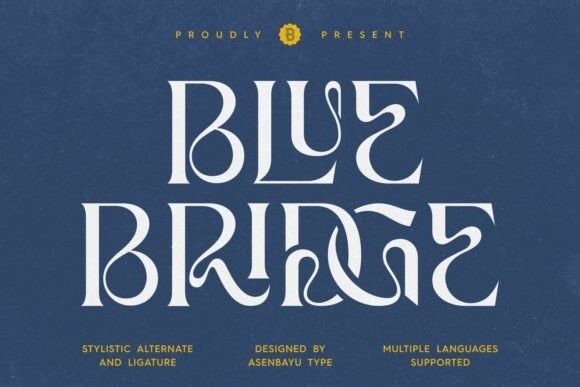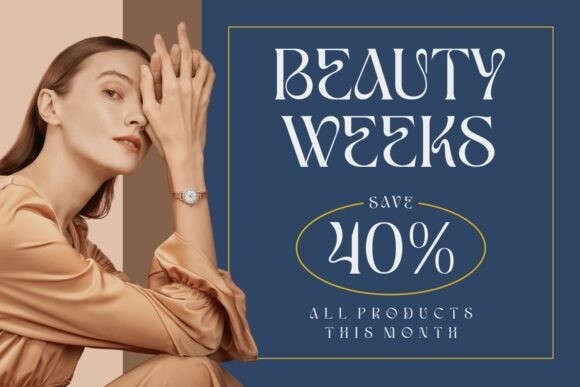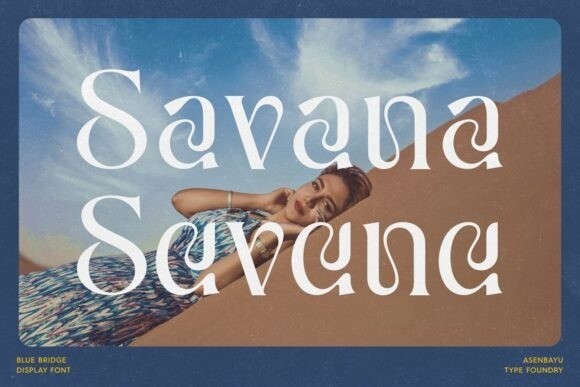
Blue Bridge Font
Blue Bridge Font is a creative decorative sharp serif display font. This font is an experimental font by combining the aesthetic characteristics of serifs and decorative flow shapes. The combination of sharp serif feet and beautifully curved lines presents a new experience in an elegant and attractive class. You can use this font in both modern and vintage designs. It is suitable for attractive packaging label designs, unique desired logos, trendy poster designs, fashion and many more.